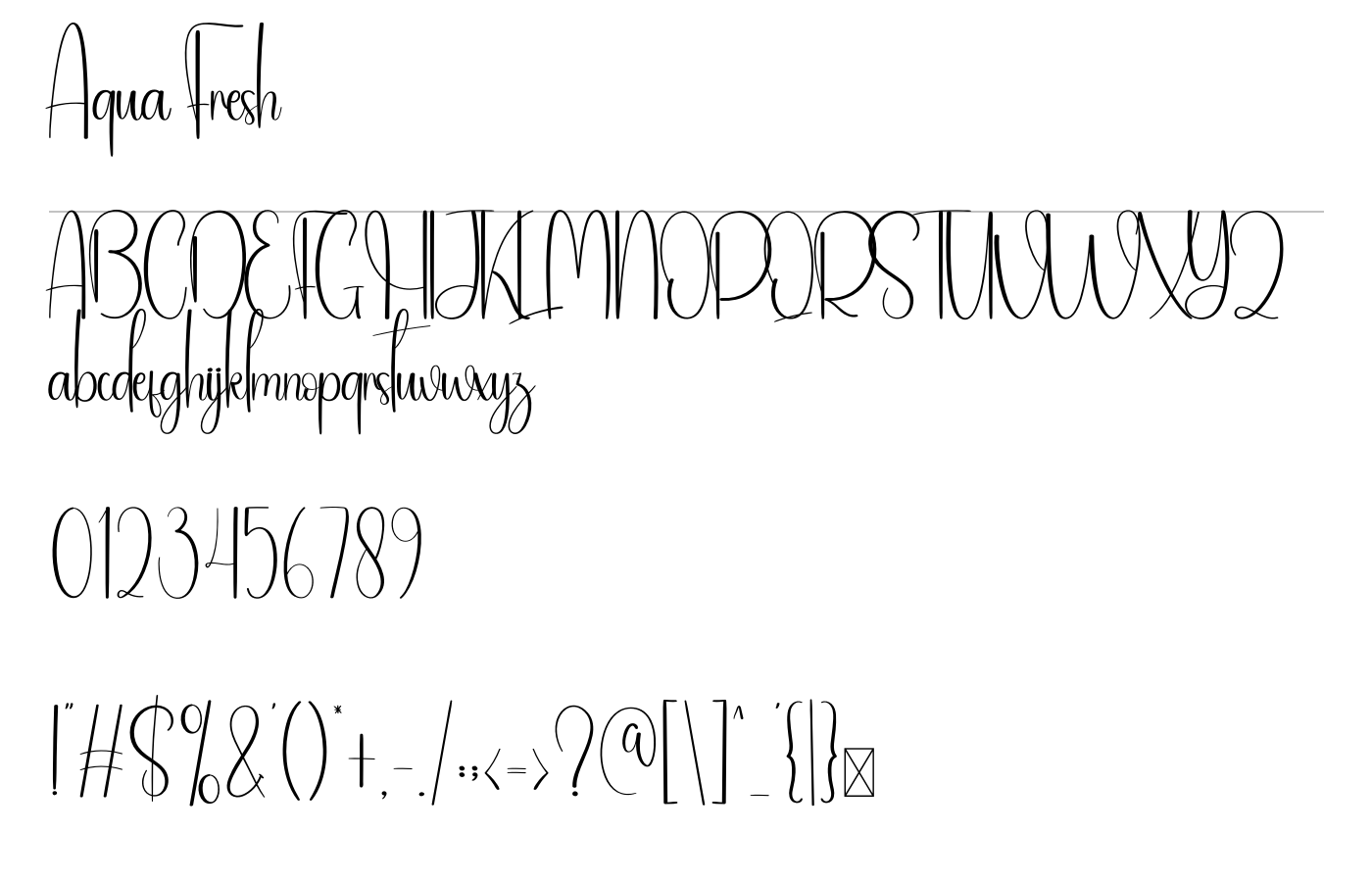
Aqua Fresh is a delicate, handwritten script font characterized by its tall, narrow letterforms and playful, flowing strokes that create a fresh and whimsical feel. Its fine lines and elegant curves make it ideal for creative projects, boutique branding, and invitations where a light, airy touch is desired. This font works best in decorative uses where a unique, charming personality is needed to convey elegance with a modern flourish.
Aqua Fresh Font